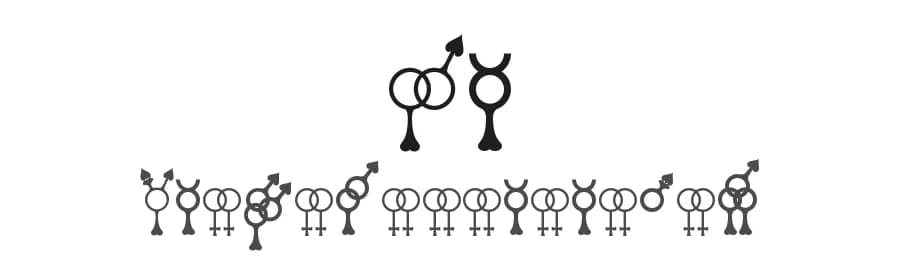
About Sekushii Font
Sekushii is a dingbat font designed by Luc Devroye. It includes 102 glyphs, a medium weight, and TTF (TrueType) format. Sekushii is free to download; check the license details on this page before commercial use. Dingbat fonts like Sekushii work best for icons, ornaments, bullet points, and decorative accents.
Sekushii Font is a versatile dingbats font that works for both headings and body text. Pair it with a contrasting sans-serif or serif font to add visual interest and a clear distinction between titles and body copy.
Sekushii Font
by Luc Devroye
Sekushii Font is a dingbats typeface by Luc Devroye, ideal for logos, invitations, branding, and creative projects.